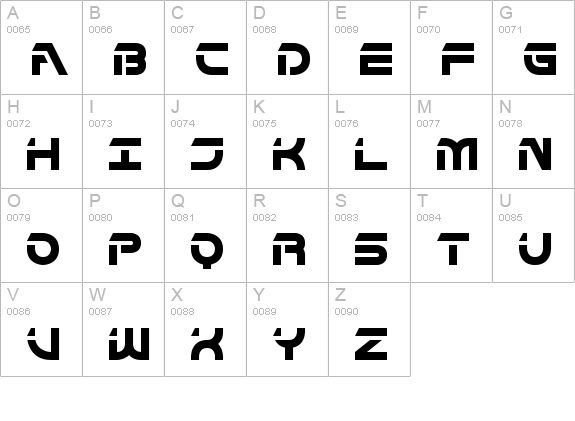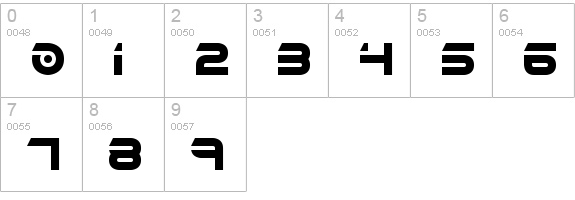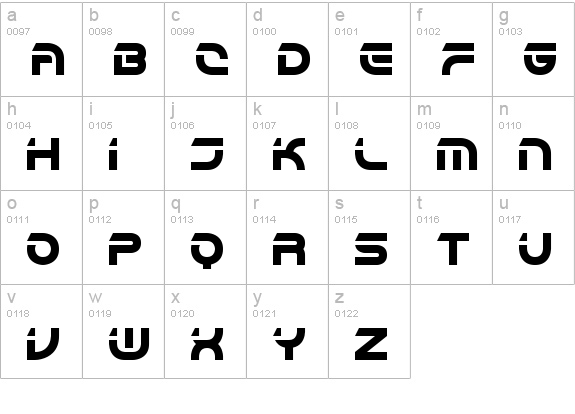
Introducing Flipside BRK, a dynamic and modern font that is sure to make your designs stand out. This playful typeface features bold, eye-catching letters with a unique twist that will add a touch of creativity to any project. Whether you're designing a poster, logo, or website, Flipside BRK is the perfect choice to make a statement. The best part? Flipside BRK is available for free download at FontsMarket.com. That's right, you can easily access this striking font and start using it in your designs right away. Don't miss out on the opportunity to enhance your projects with the distinct style of Flipside BRK. Download it now and let your creativity shine!